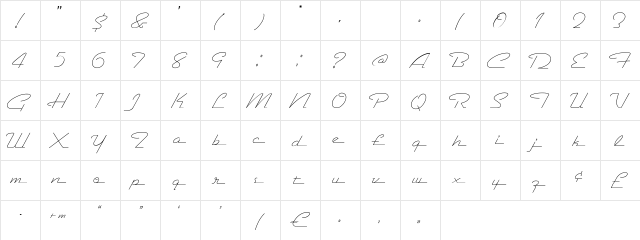
Belair-Light Light
| Foundry | Robbie de Villiers |
Design Context for Belair-Light Typeface
Belair-Light takes a measured approach to typography — its balanced proportions and neutral character make it a reliable workhorse for both digital and print work. The delicate stroke weight brings airiness and refinement to layouts.